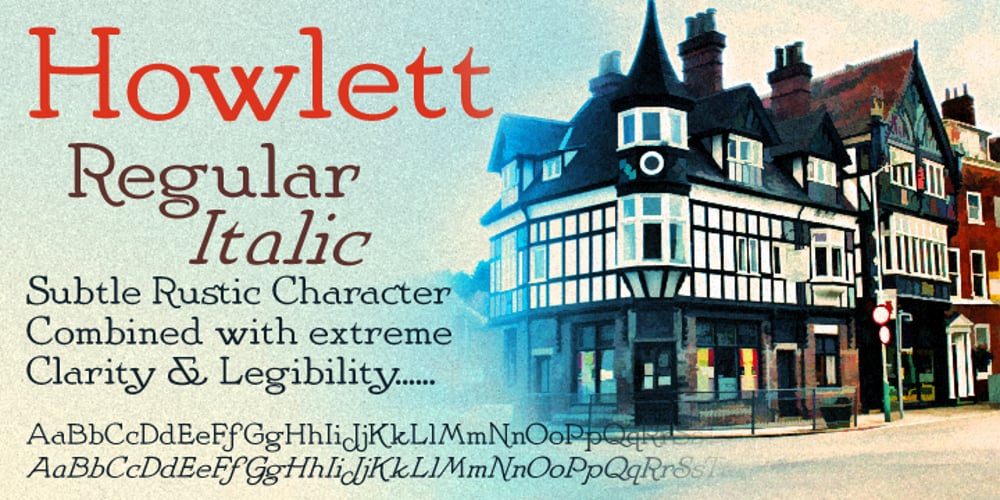
Howlett Font Family was designed by Paul James Lloyd and published by Greater Albion Typefounders. Howlett contains 2 styles and family package options. Howlett combines great character with extreme legibility. It’s a simple display face that offers a sense of coziness and order, that speaks of all being well with the world. It is a modern design which pays due Acknowledgment to the past. An extensive range of Opentype features, including old-style numerals, terminal forms, ligatures and stylistic alternatives are included. Use it for headings and titles as well as eye catching poster work.